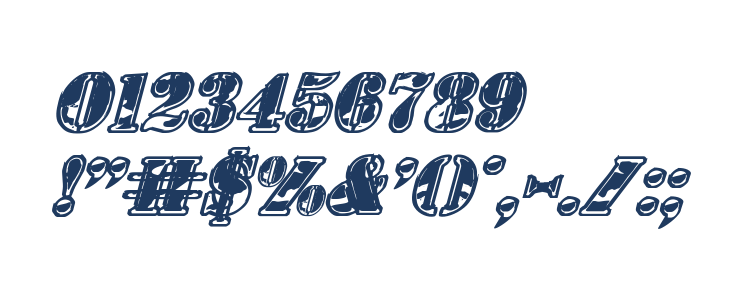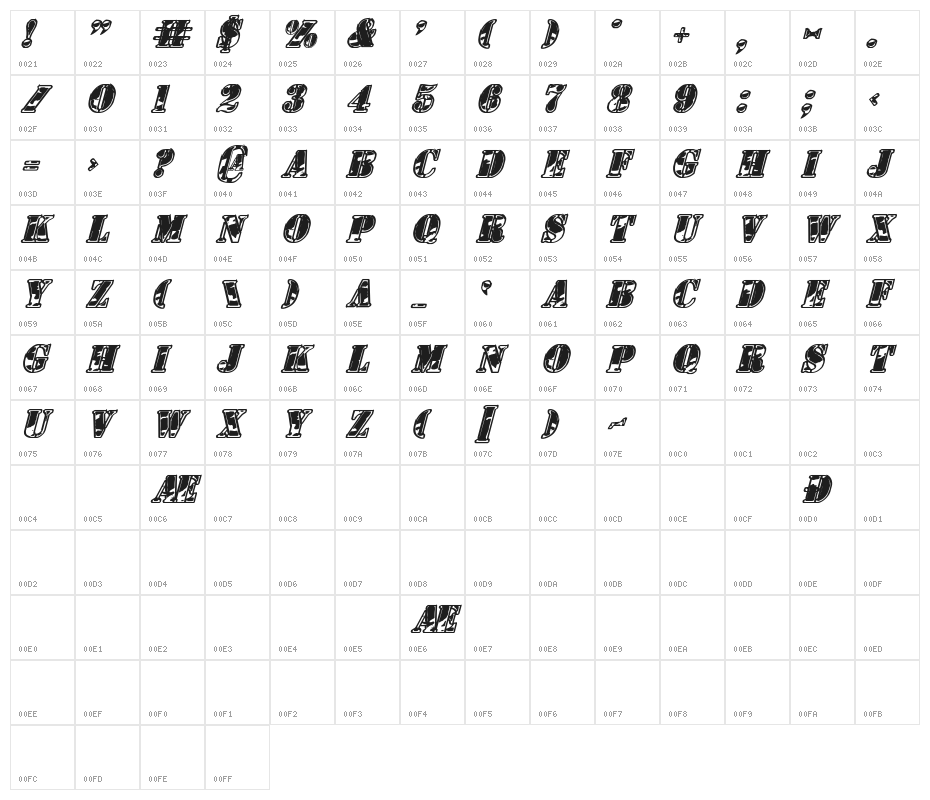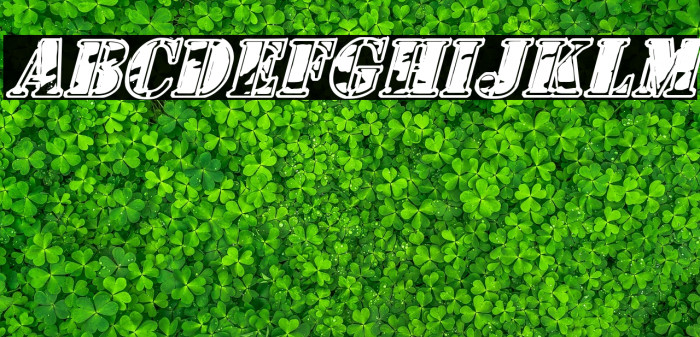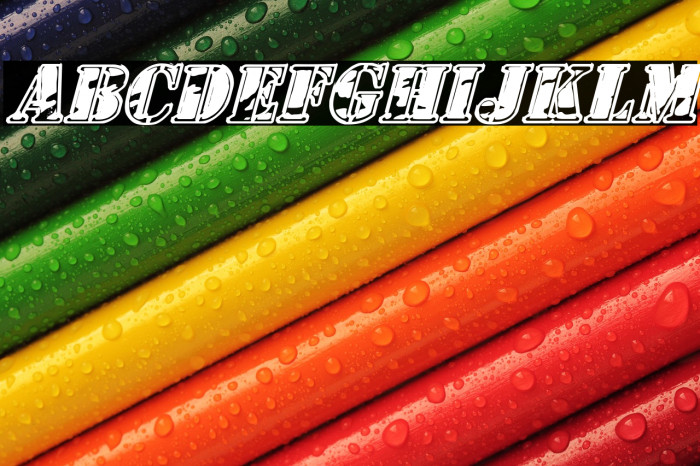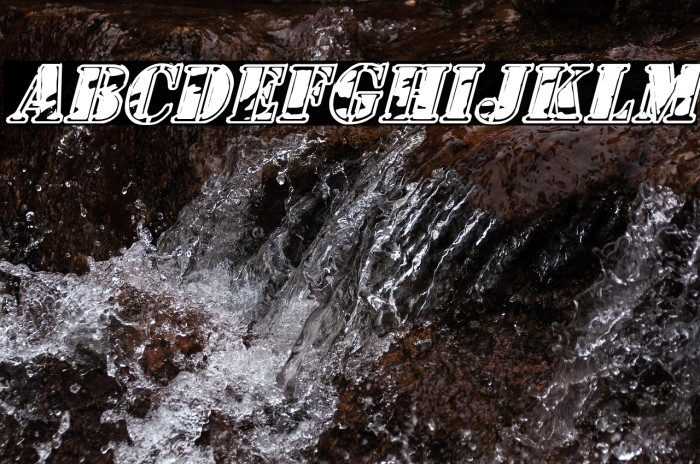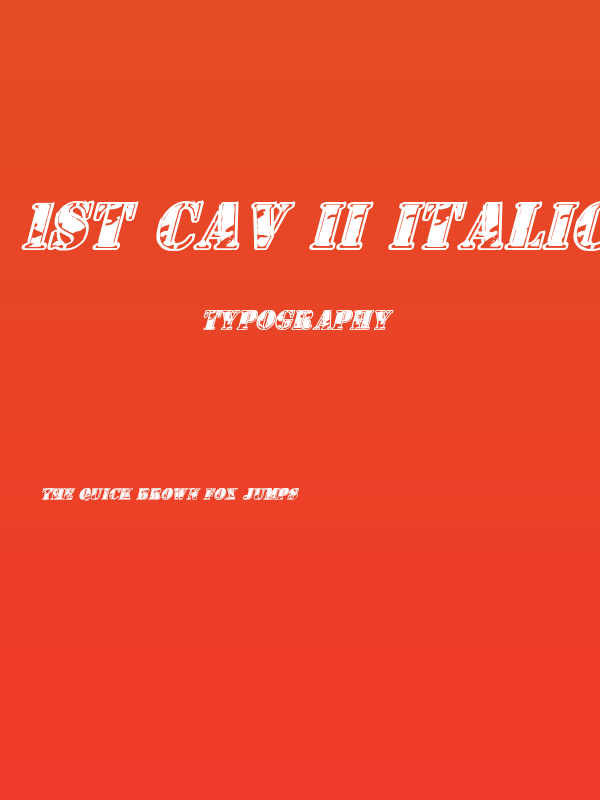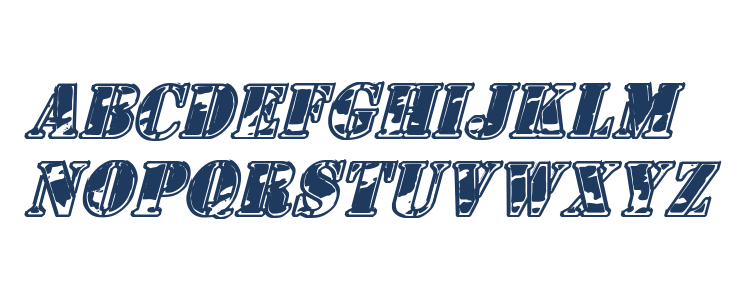
1st Cav II Italic Font
1st Cav II Italic Description
This font features a bold and dynamic design with a strong italic slant, giving it a sense of movement and energy. The characters are outlined with a thick black border, creating a striking contrast against the white interior. The interior of each character is filled with a camouflage pattern, adding a unique and rugged texture. This combination of bold outlines and intricate interior patterns makes the font highly decorative and eye-catching. The uppercase and lowercase letters maintain consistent styling, ensuring uniformity across different text applications. The numerals and special characters are designed with the same attention to detail, making them suitable for a variety of uses.
| Proposed Projects | Ideal for military-themed designs, posters, video game graphics, and branding that requires a bold, adventurous look. |